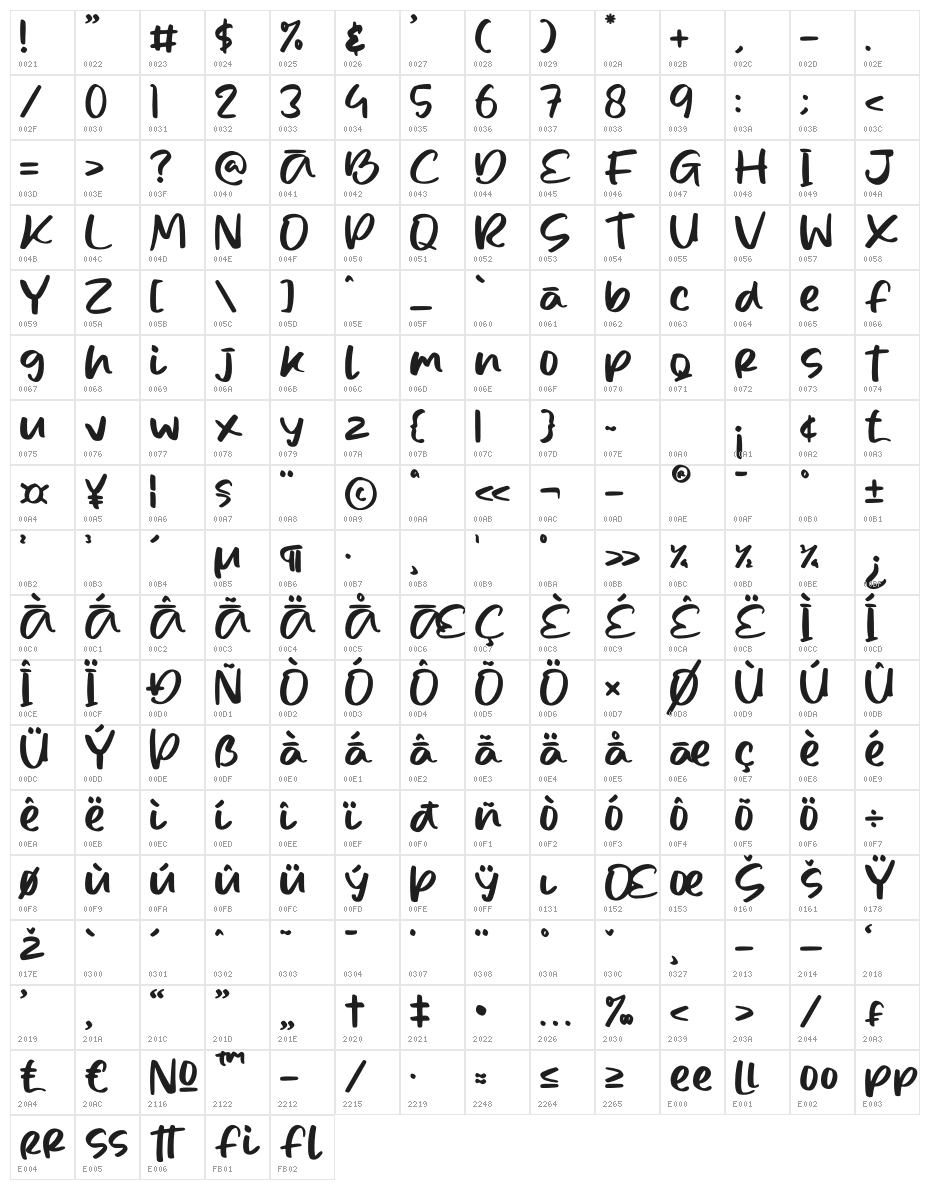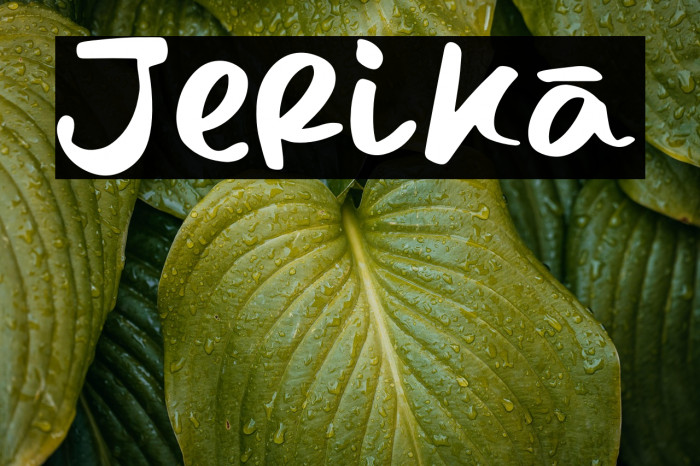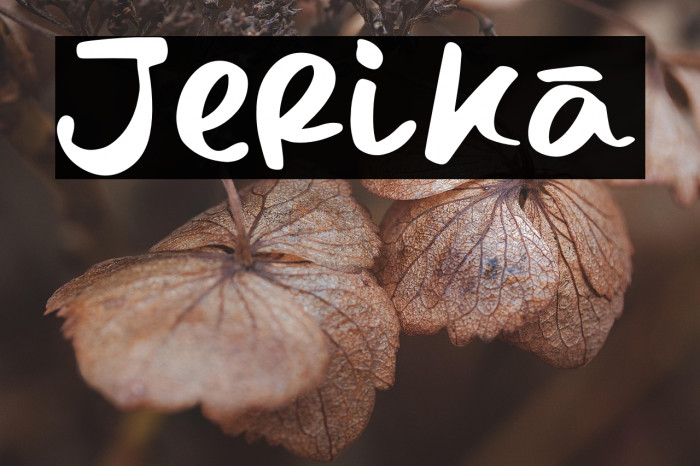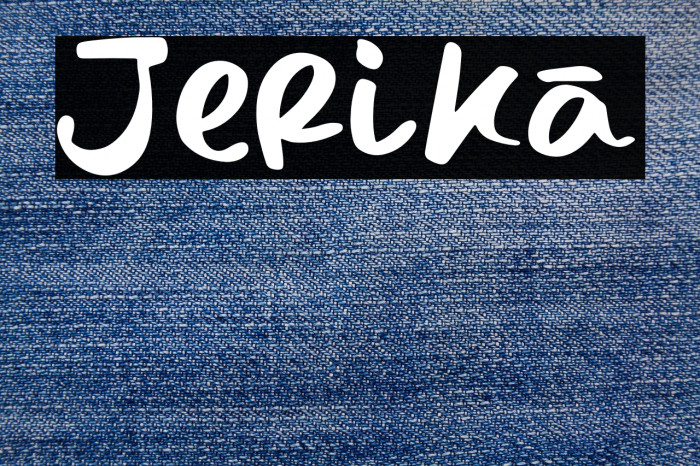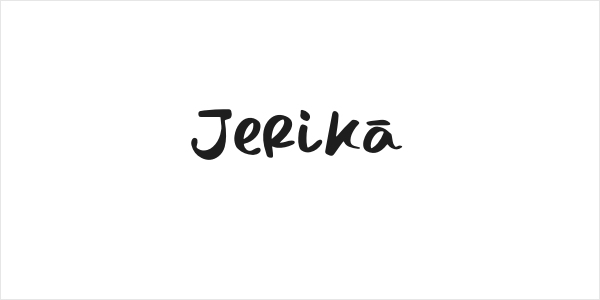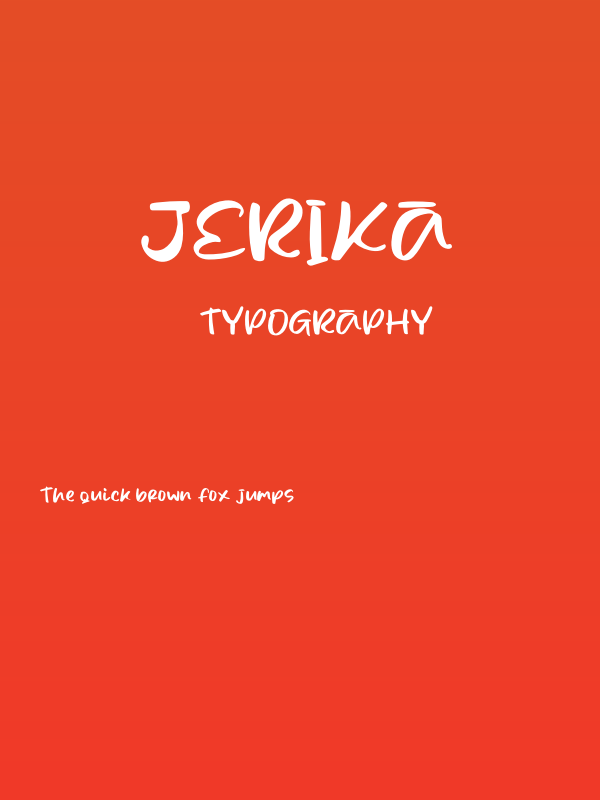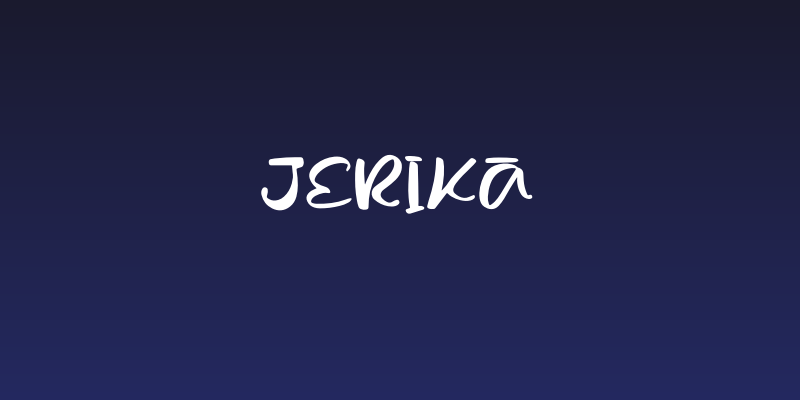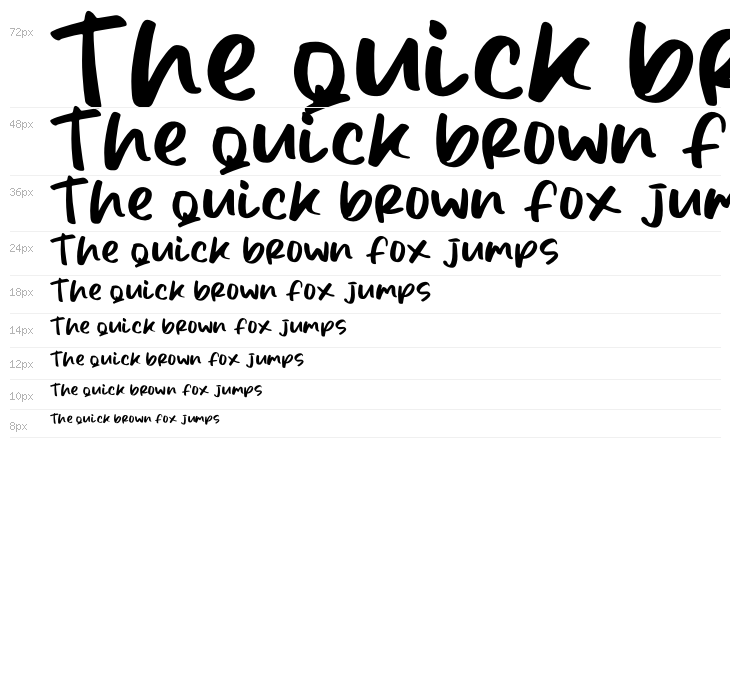
Jerika Font
Jerika Description
A playful and casual handwritten font with a smooth flow and rounded edges, conveying a friendly and approachable feel.
| Overall Style | Casual, Friendly |
| Use Case | Logos, Invitations, Social Media Posts |
| Proposed Projects | Greeting cards, casual branding, social media graphics. |